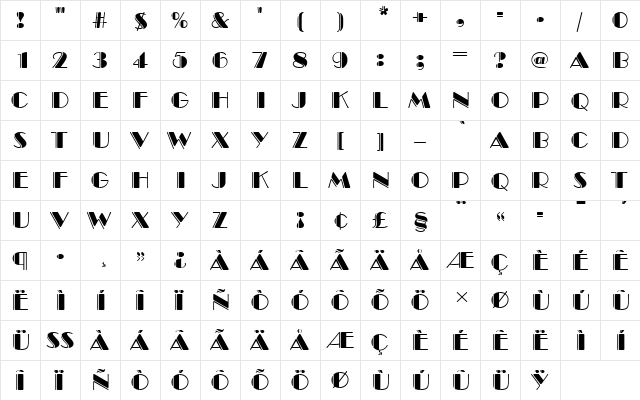
BroadwayEngDRo1 Regular
Design Context for BroadwayEngDRo1 Typeface
BroadwayEngDRo1 is a composed and adaptable typeface that performs quietly and consistently across a wide range of design contexts.